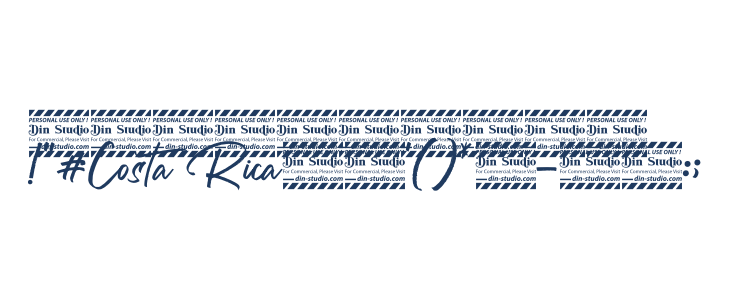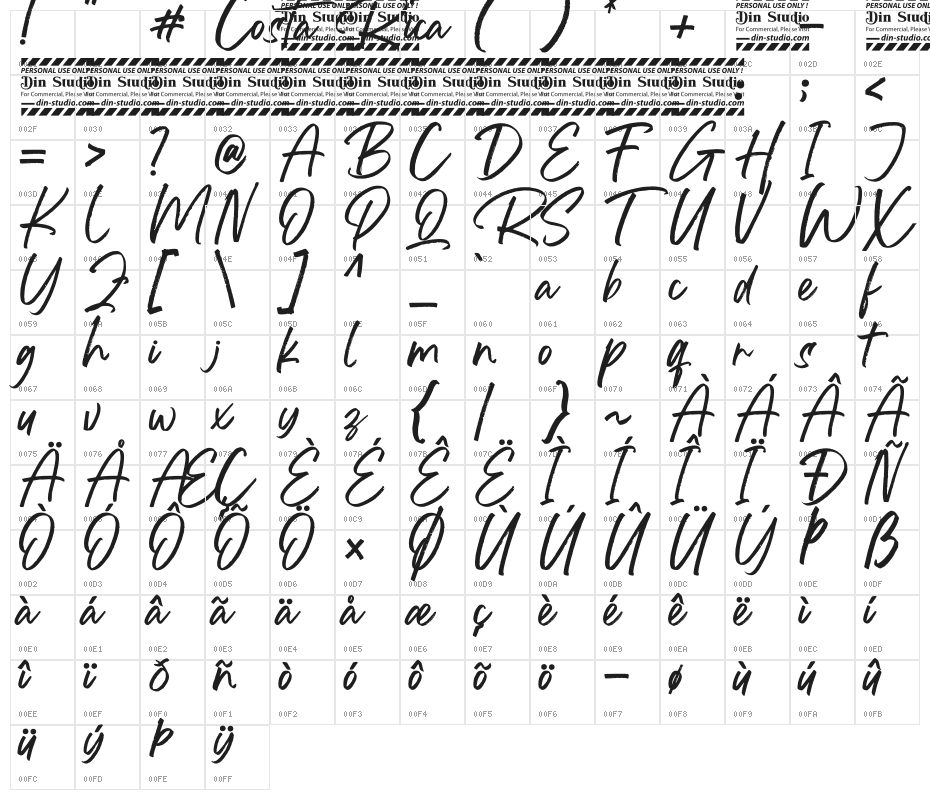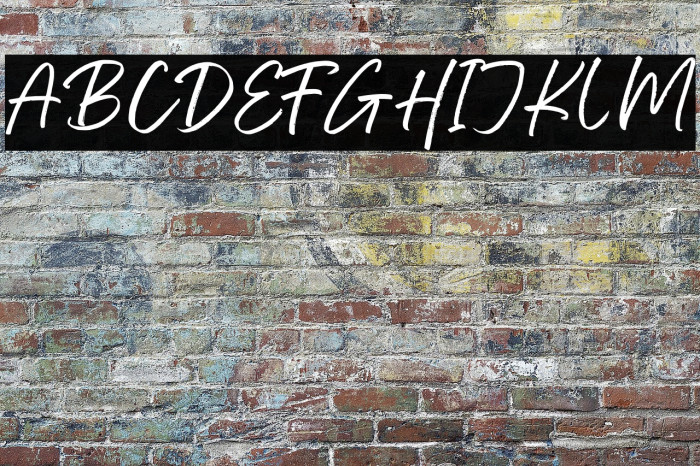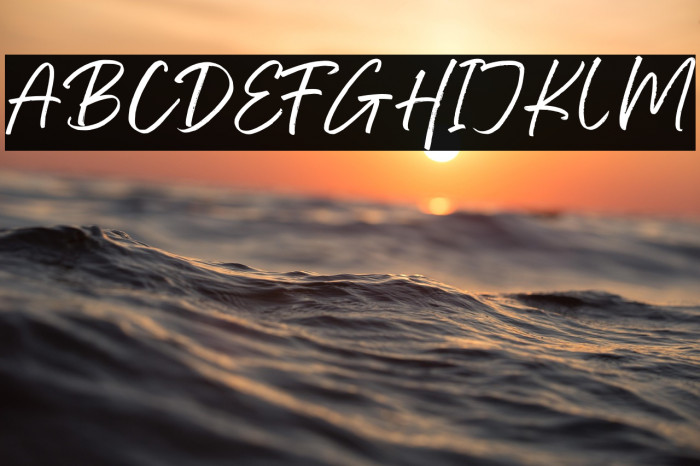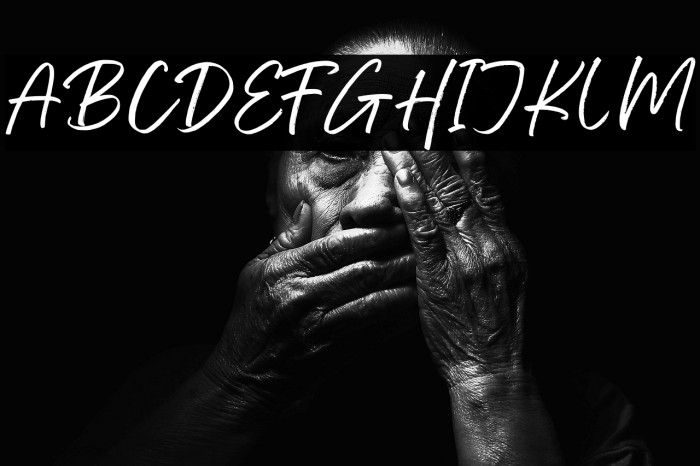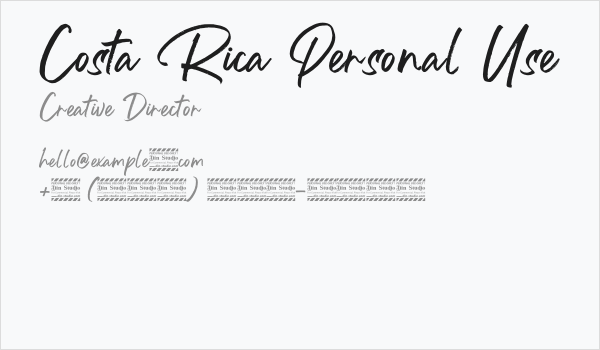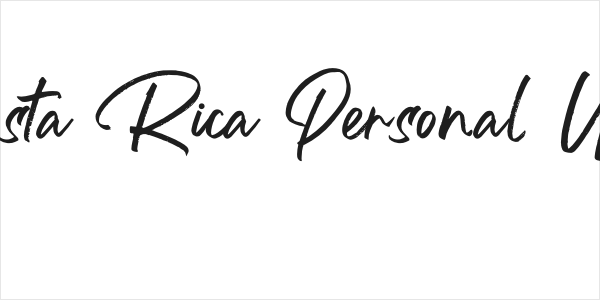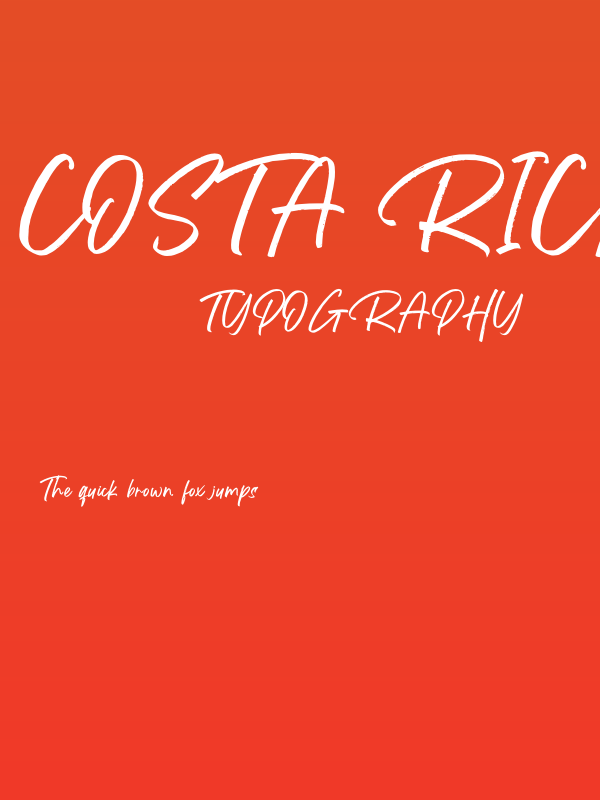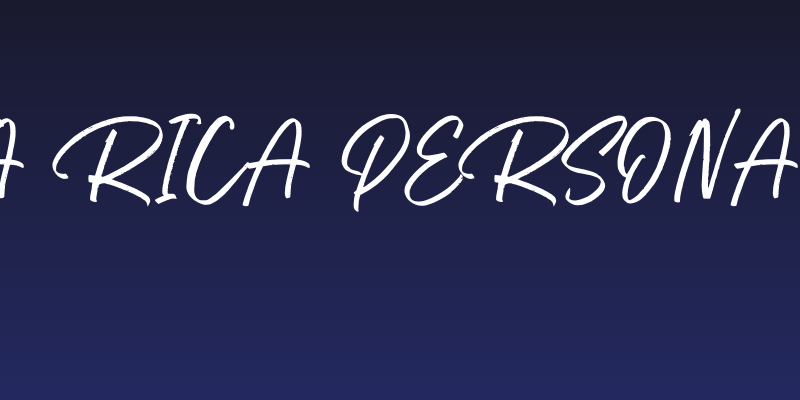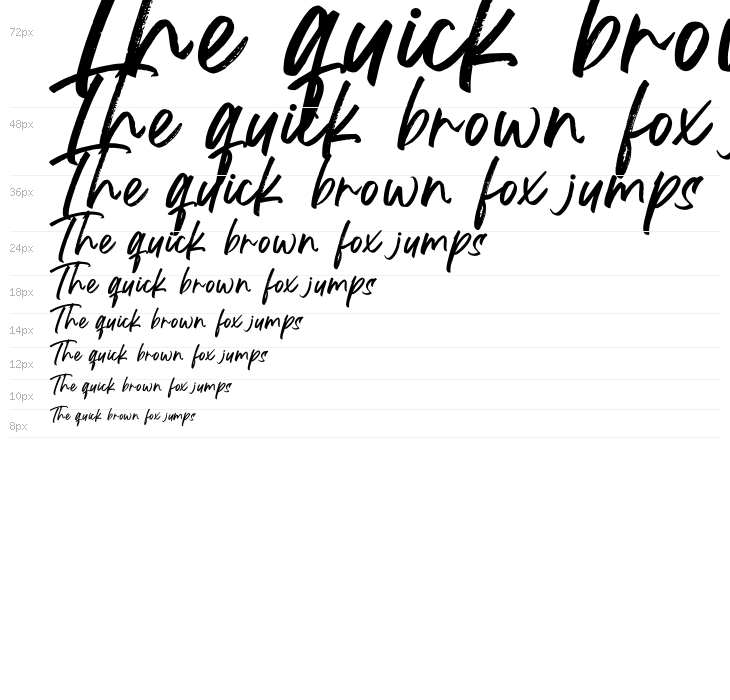
This font features a dynamic and expressive handwritten style, characterized by fluid strokes and a natural flow. The uppercase letters are bold and slightly slanted, giving a sense of movement and energy. The lowercase letters maintain a consistent style with varying stroke widths, adding to the font's lively appearance. The numerals and special characters are crafted with the same attention to detail, ensuring a cohesive look throughout. This font's unique style makes it suitable for projects that require a personal and artistic touch.
Use CaseLogos, Headlines, Artistic projects
Proposed ProjectsIdeal for branding, invitations, greeting cards, and artistic projects that require a personal touch.